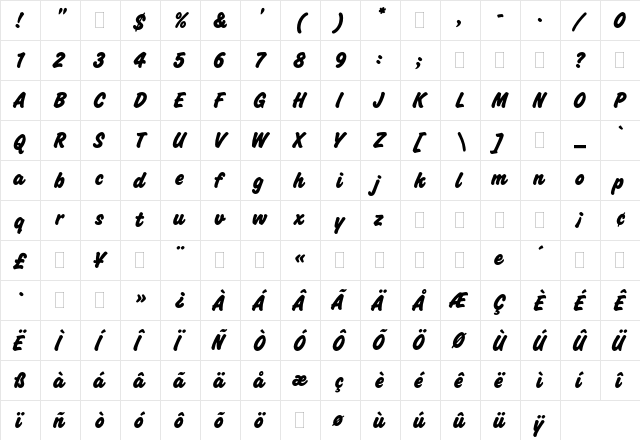
Challenge Extra Bold Plain
Design Context for Challenge Extra Bold Typeface
Challenge Extra Bold is a composed and adaptable typeface that performs quietly and consistently across a wide range of design contexts. The heavy weight commands attention and anchors typographic hierarchies.